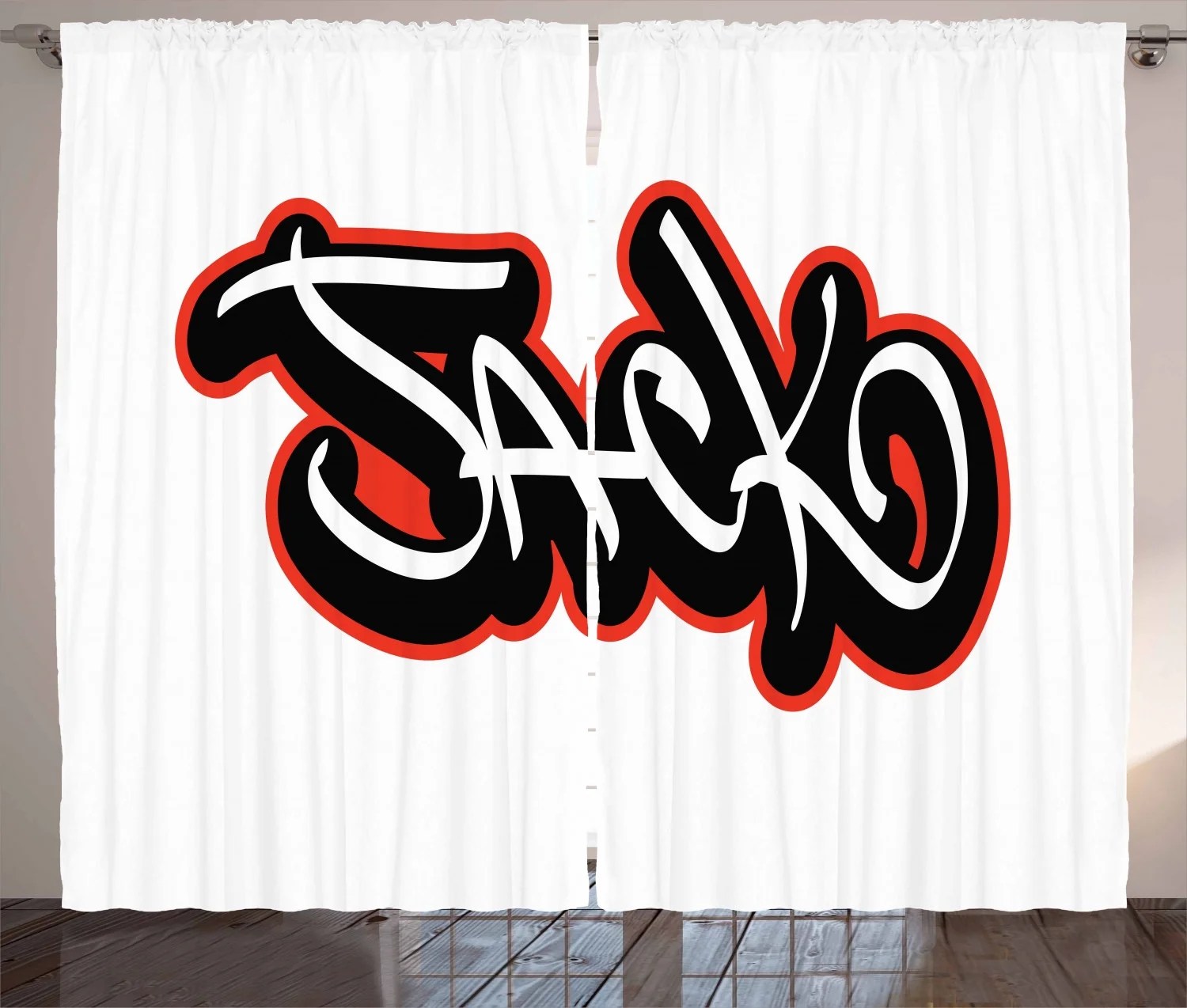
Hip Hop Font Name. Download this image now with a free trial. Graffiti has existed since very ancient times in ancient greece and the roman empire.
It is also argued as to whether hip hop started in the south or west bronx. Raslani hip hop font | designed by raslani shaashimov | download raslani hip hop for windows and mac | category: With a wide variation and clear, legible letters, this is the first choice for many.
Calligraphy fonts can be considered hipster as well. In ancient rome, people don’t have a photocopier or a fax machine or newspaper, and when you have a written message to let other people know,. If you want to create professional printout, you should consider a commercial font.
Joshua graffiti font style name hiphop stock vector (royalty free) 139576679. It is also argued as to whether hip hop started in the south or west bronx. Silly name, but solid font made by philatype.
Enter custom sample text to change the font previews below. Raslani hip hop font | designed by raslani shaashimov | download raslani hip hop for windows and mac | category: Paint cans by graffiti fonts.
Try To Keep The Logo Text Short And Simple Using A Bold Clean Font, So It's Easily Recognisable On Your Hip Hop Logo.
Bold letters with chisel effect, just like a clean graffiti tag made with a big bold graffiti marker. Curated roundups of wallpapers for your desktop, ipad and iphone. Click to find the best 16 free fonts in the hiphop style.